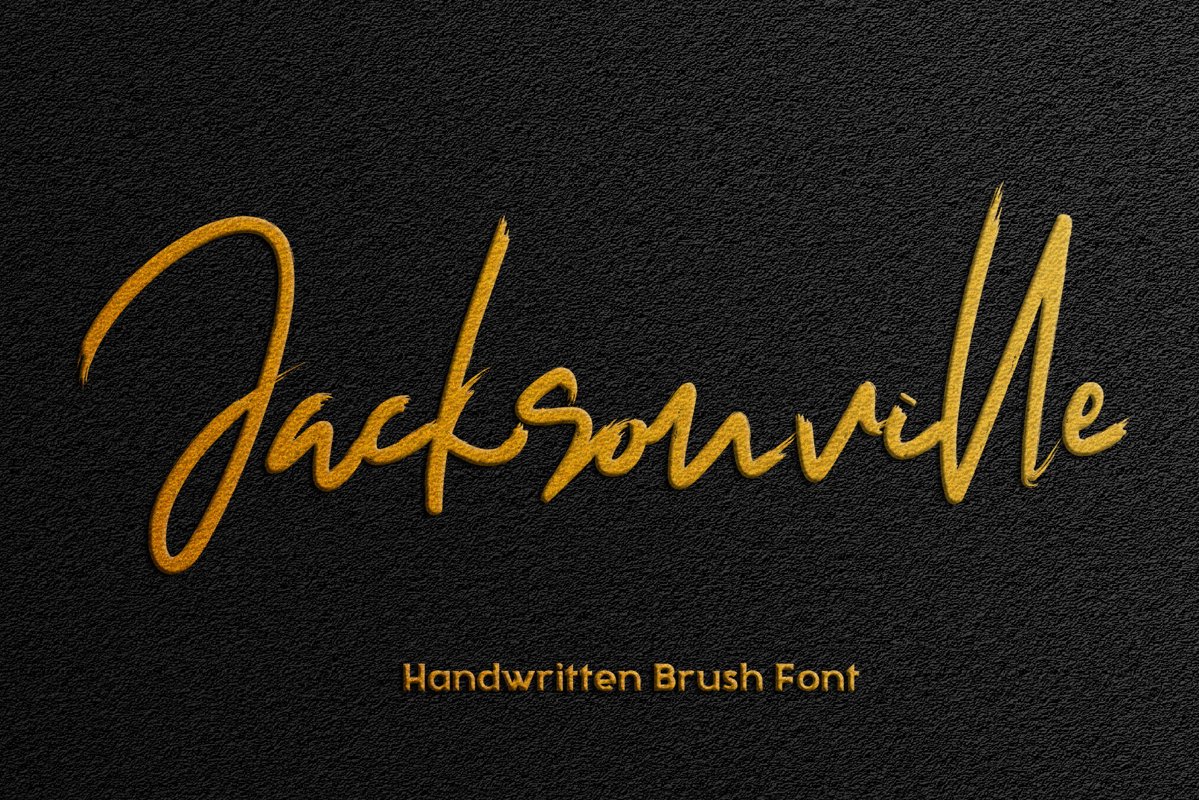
Jacksonville is a stylish signature brush script. It has an
unique, striking look which can be used to make any design stand out.
It’s perfect for logos, fashion designs,stationary, quotes,
and much more!